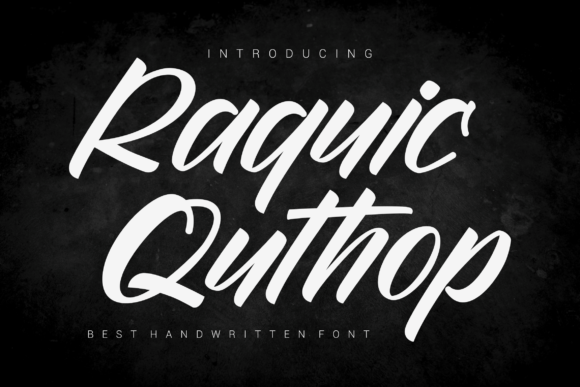
Unleash your creativity with Raquic Quthop, an enchanting script font that promises to transform your designs into visual masterpieces. Created by the talented kalingga.albert, this font is a bold and authentic expression of handwritten beauty, ready to add a touch of warmth and personality to your projects.
Step into a world of limitless possibilities with Raquic Quthop, crafted specifically for the modern minimalist. Its clean lines and graceful curves bring an air of elegance to any design. Whether you're a seasoned designer or just starting, this font will effortlessly elevate your work to new heights.
With Raquic Quthop, your designs will radiate a sense of charm and authenticity. Its intricate strokes and playful characters create a captivating aesthetic that will leave a lasting impression on your audience.
Elevate your branding to new heights with Raquic Quthop. Its versatility makes it the perfect choice for logos, t-shirt printing, exports, and a myriad of other creative projects. Let your imagination run wild as you explore the endless possibilities that this font presents.
Experience the beauty of simplicity and authenticity with Raquic Quthop. Its minimalist design ensures a seamless integration into any project, allowing your message to shine through with clarity and impact.
Don't settle for ordinary fonts that blend into the background. Embrace the power of Raquic Quthop and watch as your designs come alive with a unique and captivating presence.